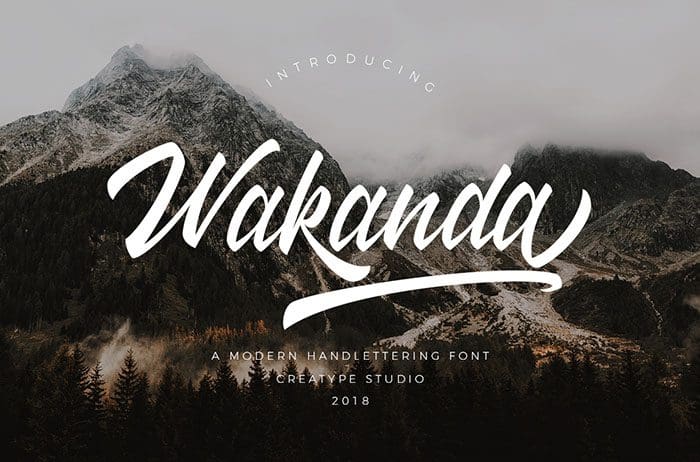
Wakanda Script Font
Wakanda Script Font is a stylish & modern hand letter script typeface. This font will look awesome and amazing in any way to your latest project. Thanks to Creatype Studio for sharing this font! Take a look at this portfolio for more of his stunning fonts.